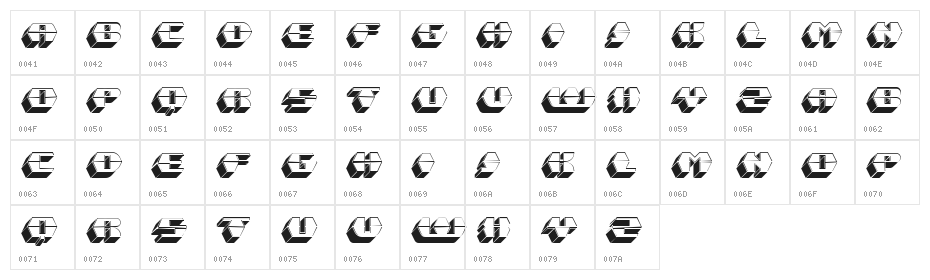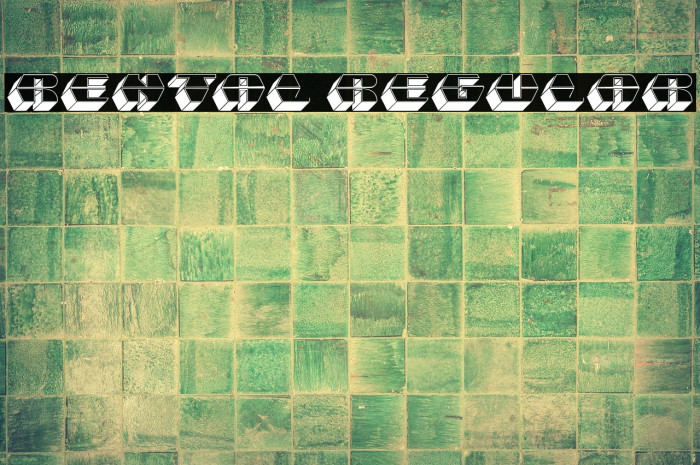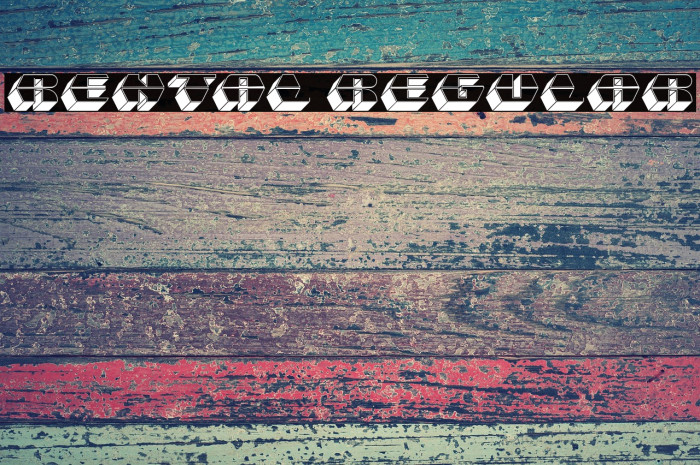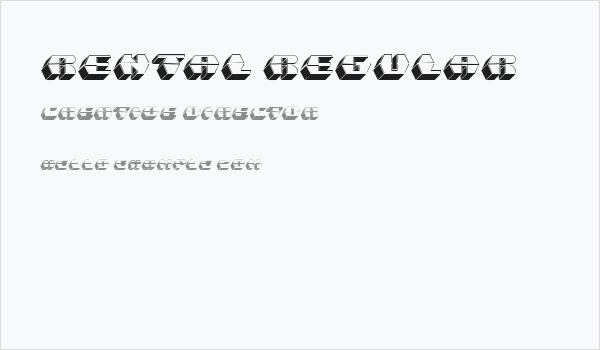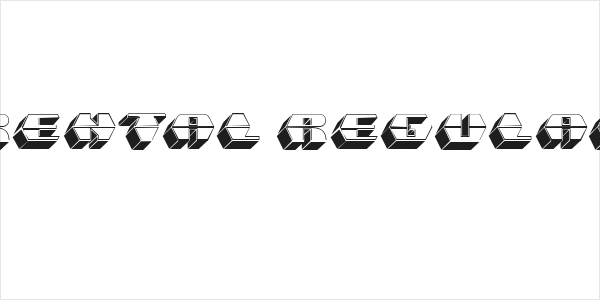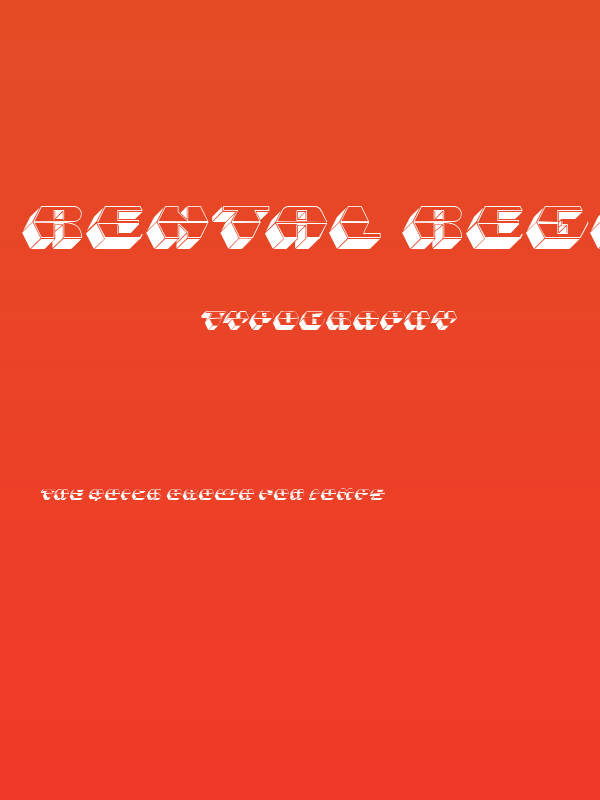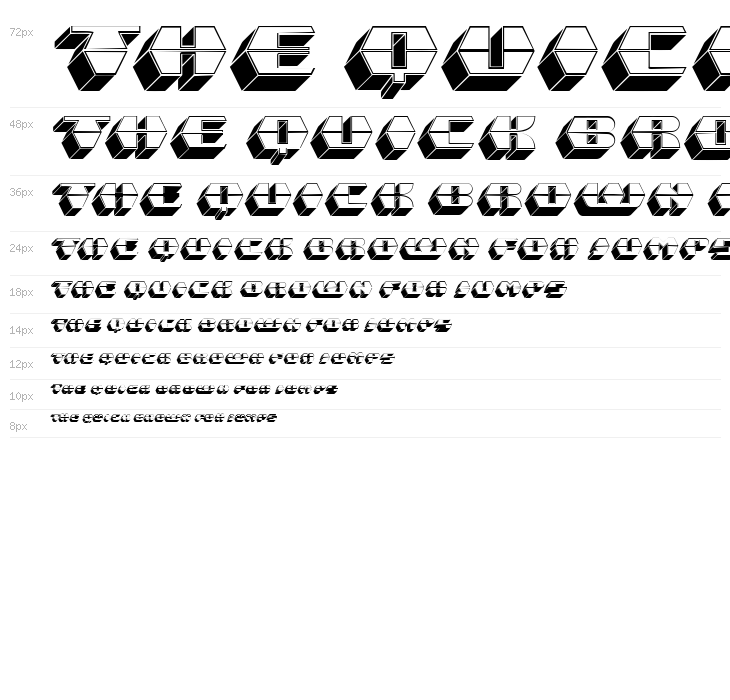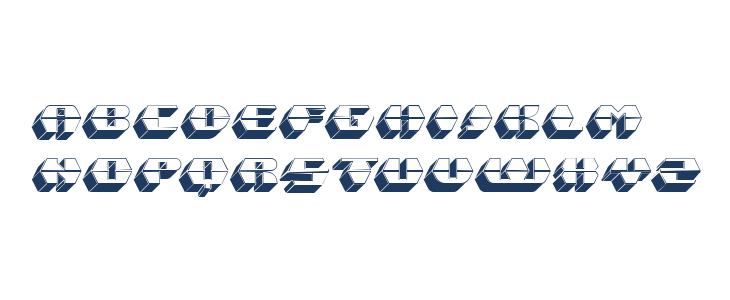
Rental Regular Font
Rental Regular Description
This font features a bold, three-dimensional design with a geometric and blocky appearance. Each character is crafted with a shadow effect, giving it a distinct, eye-catching look. The letters are uppercase and lowercase, with numbers and special characters included. The style is reminiscent of retro or vintage signage, with a playful yet structured form. The font's thick strokes and angular shapes make it stand out, suitable for designs that require a strong visual impact. Its unique 3D effect adds depth and dimension, making it ideal for creative projects.
| Overall Style | Retro, Decorative |
| Proposed Projects | Ideal for posters, logos, headlines, and any design needing a bold, retro touch. |